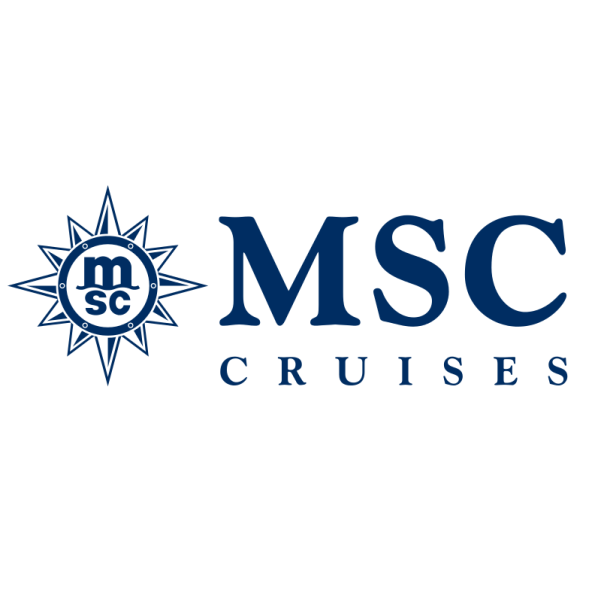
MSC Cruises Font
MSC Cruises likely uses the font Goudy Old Style Bold for its logo. This classic font was created by Frederic W. Goudy in 1915 for American Type Founders. More information about the font can be found here.